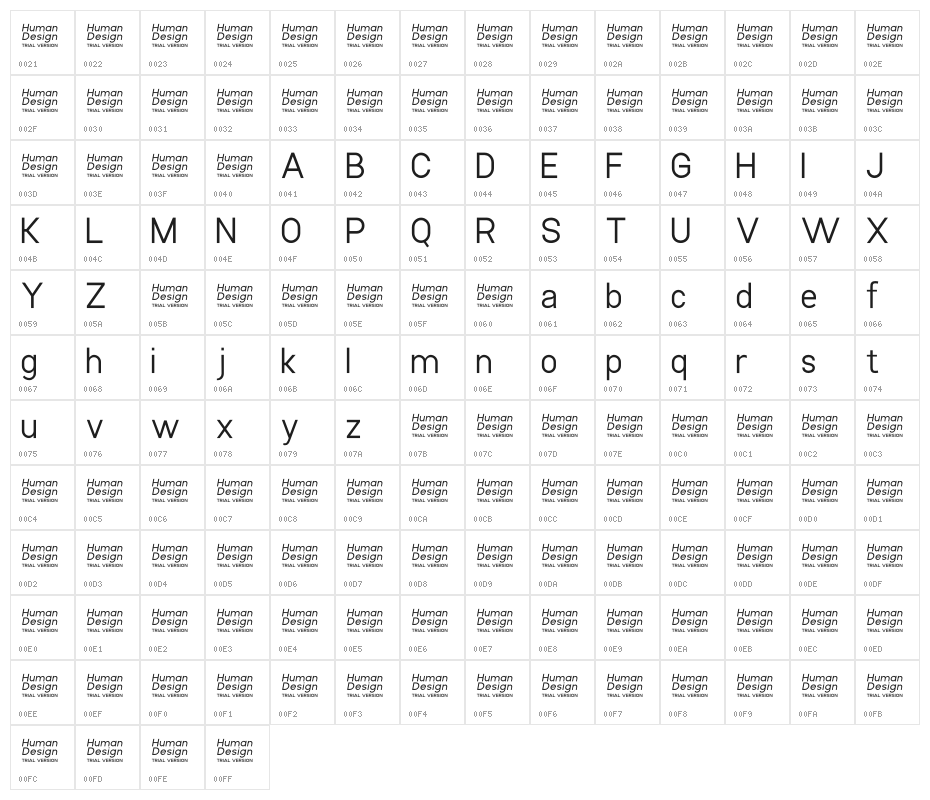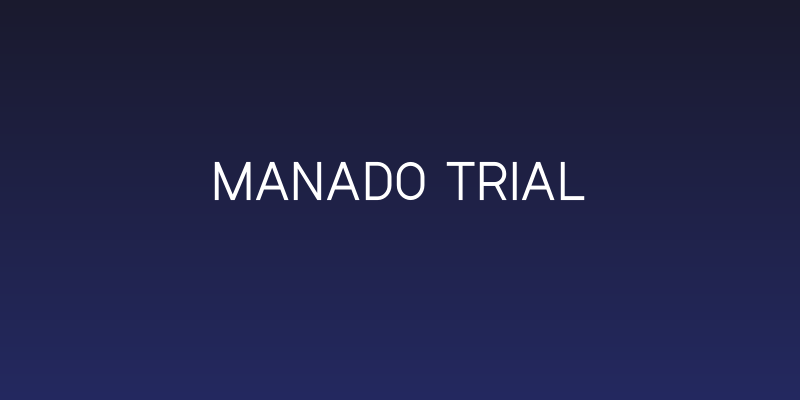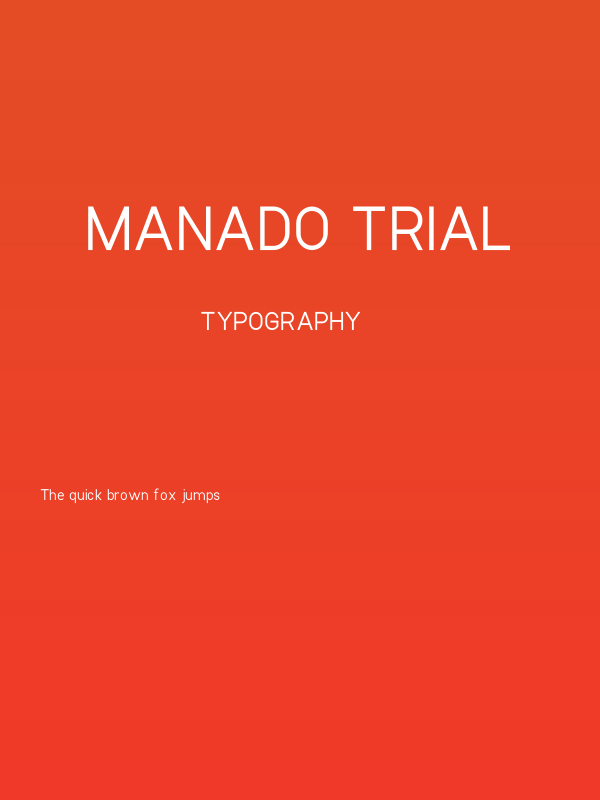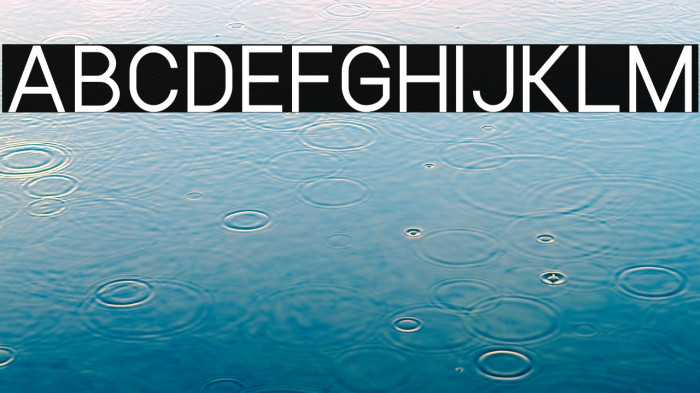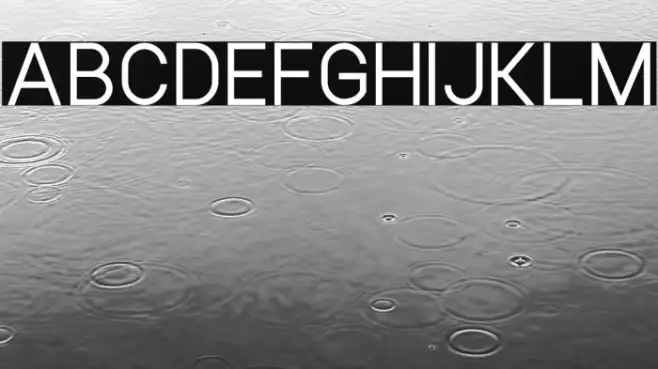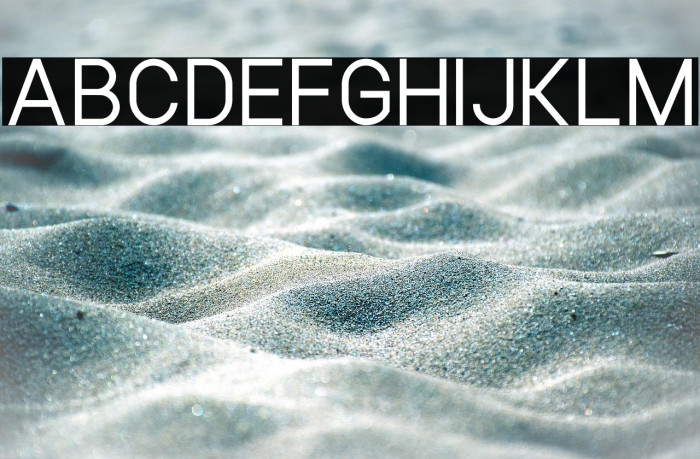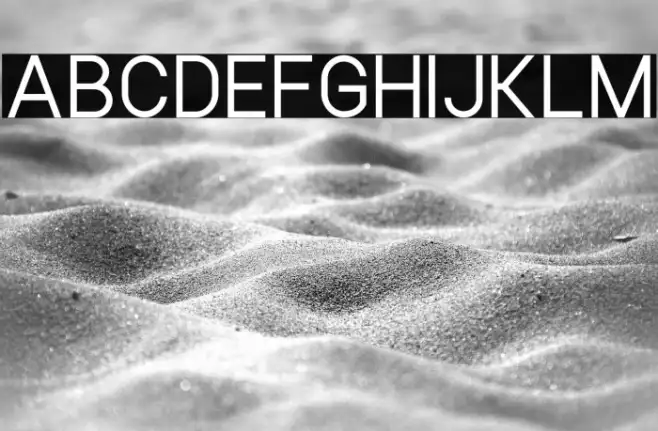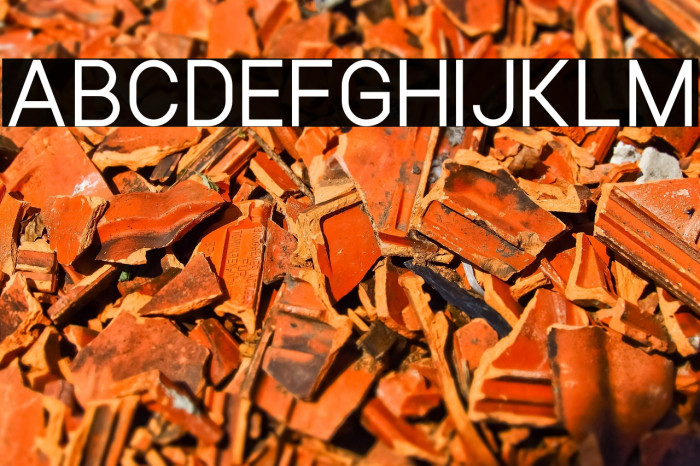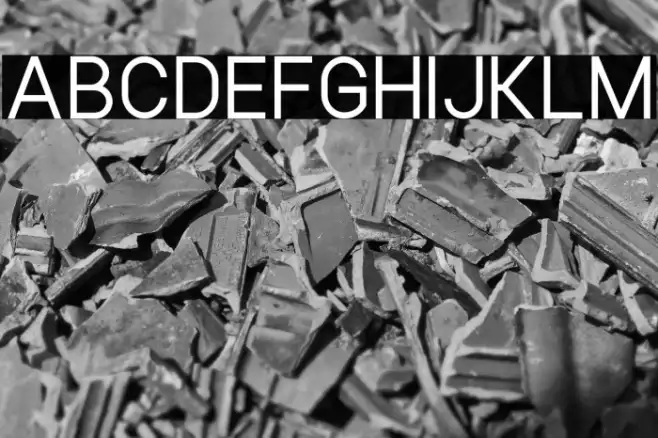
Manado Trial Font
Manado Trial Description
This font features a clean and modern sans-serif style, characterized by its geometric shapes and uniform stroke widths. The uppercase letters are bold and assertive, while the lowercase letters maintain a consistent height and spacing, providing a balanced and harmonious appearance. The numerals are clear and legible, making them suitable for various applications. The special characters are designed with simplicity and clarity in mind, ensuring they integrate seamlessly with the rest of the typeface. This font's overall aesthetic is minimalist and contemporary, making it versatile for a wide range of design projects.
| Proposed Projects | Ideal for branding, web design, advertising, and editorial layouts. |